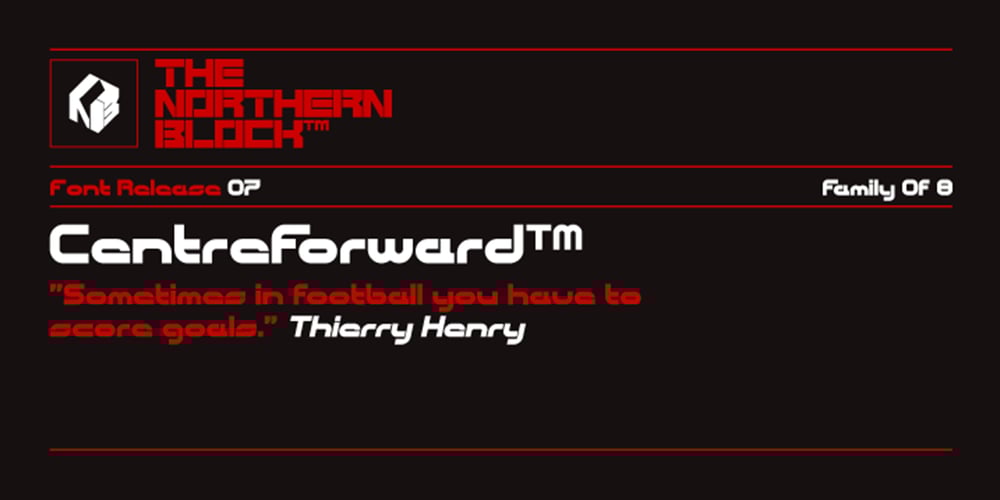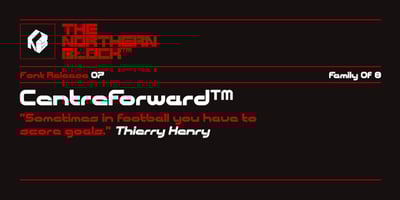
CentreForward
CentreForward font
CentreForward Font Family was designed by Jonathan Hill and published by The Northern Block. CentreForward contains 8 styles and family package options. CentreForward is an 8 font family consisting of 4 weights with italics. A smooth modular font that draws on ideas observed in the 1982 Football World Cup. Influential players: Paolo Rossi, Socrates, Zico & Tardelli.